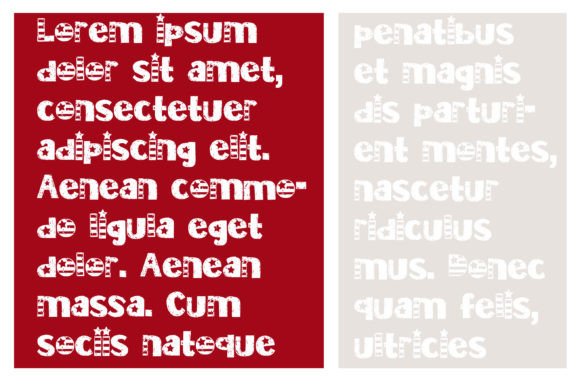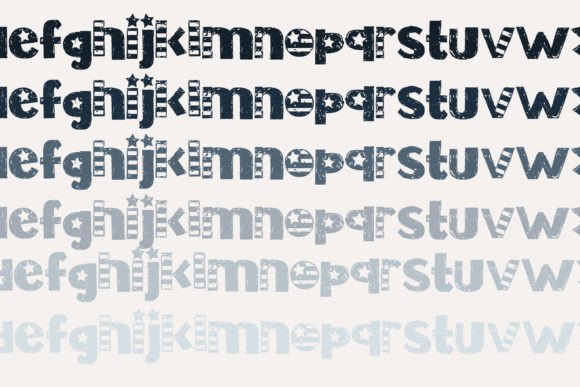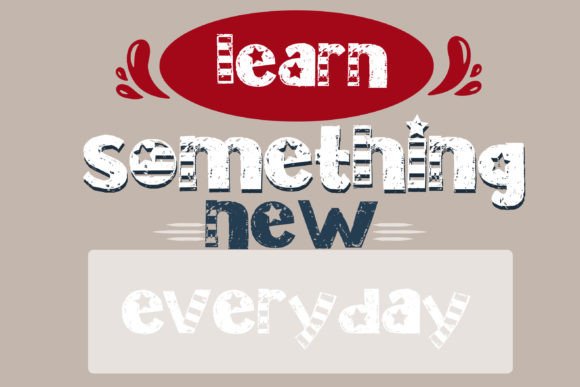
Introduction to Dirty Democracy Font
Dirty Democracy is a unique sans serif font designed with an American theme, featuring stars and stripes alongside a touch of rough texture for a rugged look.
Key Features of Dirty Democracy Font
Why Choose Dirty Democracy Font?